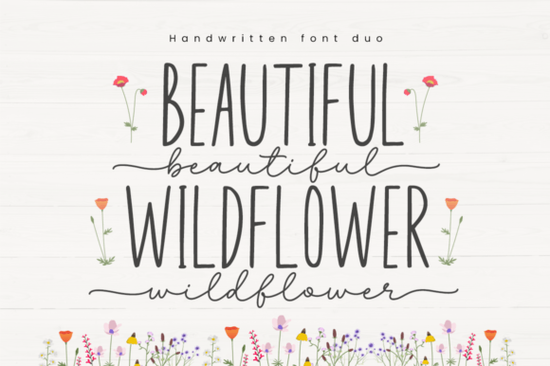
If you're looking for a font pair that works beautifully together for your next design project, the Beautiful Wildflower duo font is worth considering. It comes as two complementary typefaces designed to give your crafts a stylish, cheerful look. Whether you use them together or separately, the set offers flexibility without sacrificing visual harmony.
What makes this duo font different from a single script font?
Many script fonts come as a single style, which can limit your options when you need contrast in a design. The Beautiful Wildflower duo gives you two distinct fonts that are built to complement each other. One might be a lighter, more delicate script while the other is bolder or more decorative. Using both in the same layout creates a balanced, professional look without you having to hunt for matching fonts from different sets. Because both are designed together, the weights, x-heights, and overall feel remain consistent. If you're a print-on-demand seller or a small business owner creating brand materials, this saves time and avoids the common headache of mixing fonts that clash.
Can you use all the swashes and alternates easily?
Yes, the font includes PUA (Private Use Area) encoding, which means you can access every glyph, swash, and alternate character without needing special software or complex workarounds. Most design programs like Adobe Illustrator, Photoshop, Canva (with the font installed), and even Microsoft Word will let you select swashes directly from the Glyphs panel or Character Map. This is especially helpful if you want to add those extra flourishes to invitations, wedding stationery, or social media graphics. No more guessing which keyboard shortcut inserts a certain curl everything is laid out for you.
Many script fonts that include swashes require OpenType savvy or third-party apps to swap characters. Beautiful Wildflower's PUA support removes that barrier, so even if you're not a typography expert, you can make your lettering look handcrafted and unique. If you enjoy experimenting with different child-friendly script fonts for playful projects, you'll find the same ease of use here.
Is this font good for print-on-demand products?
Absolutely. Script fonts are popular for t-shirts, mugs, tote bags, and wall art because of their handwritten, approachable feel. The duo nature of Beautiful Wildflower means you can pair a flowing script for the main phrase with a complementary style for subtext or personalization. For example, use the more ornate version for the word "Love" and the cleaner one for "You" in a design. This creates visual interest without making the text hard to read. If you're running a small shop or creating custom gifts, having a duo font like this simplifies your design process. You won't need to spend time matching a headline font with a body font the duo already does that work for you.
How can crafters and hobbyists use this font in real projects?
Crafters will appreciate how the two fonts can be layered or alternated in card making, scrapbooking, and bullet journal covers. Because the swashes are easy to access, you can create custom titles that feel hand-lettered. The cheerful style makes it a good pick for birthday invites, baby shower announcements, and garden party signs. You could also use it for digital planners or blog headers the legibility holds up even at smaller sizes.
What should you check before downloading this font?
Before you commit to using Beautiful Wildflower in a commercial project, make sure your design software supports PUA encoding (most do, but some older web tools may not). Also consider that duo fonts often work best when you use the main script for headlines and the second style for subheadings or short paragraphs using both together in long passages can become visually overwhelming. For best results, keep the swashes limited to initial letters, end flourishes, or decorative accents.